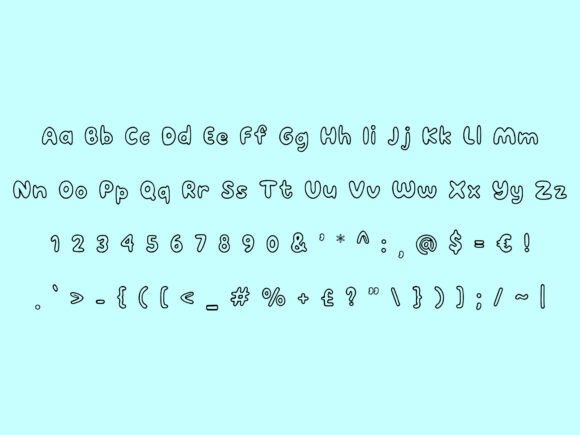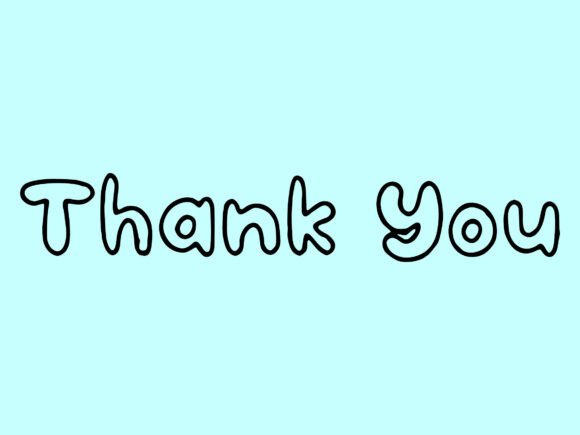
Bring Whimsy to Your Designs with the Bubble Doodle Font
You know that moment when you’re brainstorming ideas for a creative project and suddenly a playful, hand-drawn text style pops into your head? For many designers, that spark of inspiration often leads to some of their most innovative and engaging work. One style that’s sure to capture that carefree, artistic vibe is the Bubble Doodle Font.
This charming text style features outlined bubble letters that create a friendly and approachable look, perfect for everything from kids’ projects to party decorations. By incorporating the Bubble Doodle Font into your designs, you can add a unique and artistic touch that sets your work apart from the ordinary. Whether you’re a seasoned designer or a crafty creative, this font is a valuable addition to your toolkit.
Bubble Doodle Font Key Features
- Character Count: The font includes over 400 unique characters, including letters, numbers, punctuation marks, and special characters.
- Unique Characteristics: Bubble Doodle Font features a playful, whimsical design with rounded bubbles and a mix of bold and thin lines, making it perfect for creating eye-catching graphics and designs.
Bubble Doodle Font Review
I recently had the chance to work with the Bubble Doodle Font, and I wanted to share my honest thoughts on this quirky, playful font.
- Unique design: Bubble Doodle Font is undeniably one-of-a-kind. Its bubbly, hand-drawn style adds a touch of whimsy to any design project.
- Fun for children’s content: The font’s playful nature makes it perfect for children’s books, educational materials, or any project aimed at a younger audience.
- Easy to read: Despite its unusual design, Bubble Doodle Font is surprisingly legible, making it suitable for a wide range of applications.
- Not ideal for formal or professional contexts: Bubble Doodle Font’s casual, playful style may not be suitable for corporate or formal projects.
- Limited font sizes: The font’s design may not scale well to larger font sizes, which can affect its legibility.
Bubble Doodle Font is a charming, one-of-a-kind font that excels in creative, playful projects. While it may not be suitable for every design project, it’s a great addition to any designer’s toolkit.
The Bubble Doodle Font is ideal for creating playful and whimsical designs, such as:
- Children’s party invitations
- Wedding stationery
- Blog post headings
- Custom illustrations
Alternatives to Bubble Doodle Font for Designers
Great Vibes is a fun, cursive script font that is perfect for creating a playful and relaxed atmosphere in designs. It is ideal for use in invitations, social media graphics, and advertising materials. Great Vibes has a more polished look compared to Bubble Doodle Font, making it a great choice for professional designs.
Carolyna Pro is a modern, elegant script font that is suitable for a wide range of designs, from wedding invitations to product packaging. It has a more refined and sophisticated look compared to Bubble Doodle Font, making it a great choice for high-end designs. Carolyna Pro is also highly customizable, allowing designers to adjust its appearance to suit their needs.
Alex Brush is a beautiful, handwritten font that is perfect for creating a personal and emotional connection with the audience. It is ideal for use in wedding invitations, greeting cards, and other types of stationery. Alex Brush has a more organic and natural look compared to Bubble Doodle Font, making it a great choice for designs that require a touch of elegance and sophistication.
Can I customize the Bubble Doodle Font to fit my design needs?
Yes, the Bubble Doodle Font is a fully editable OpenType font, which means you can access advanced features such as ligatures, alternates, and stylistic sets using a font editor like FontLab or Glyphs. Additionally, you can use font manipulation software like FontForge to modify the font’s metrics and spacing.